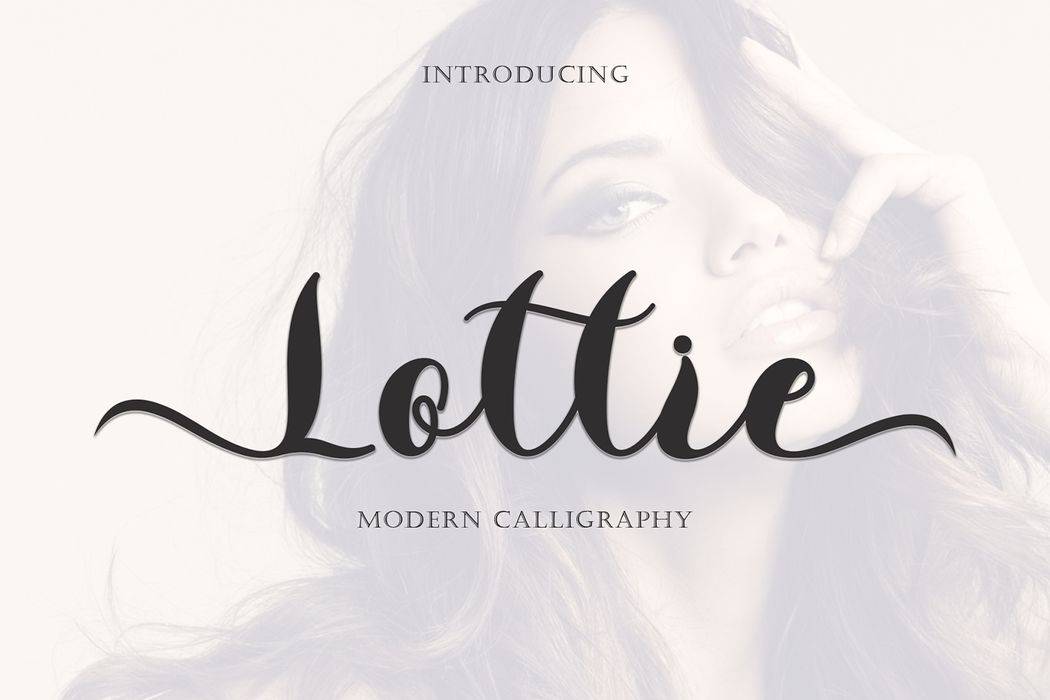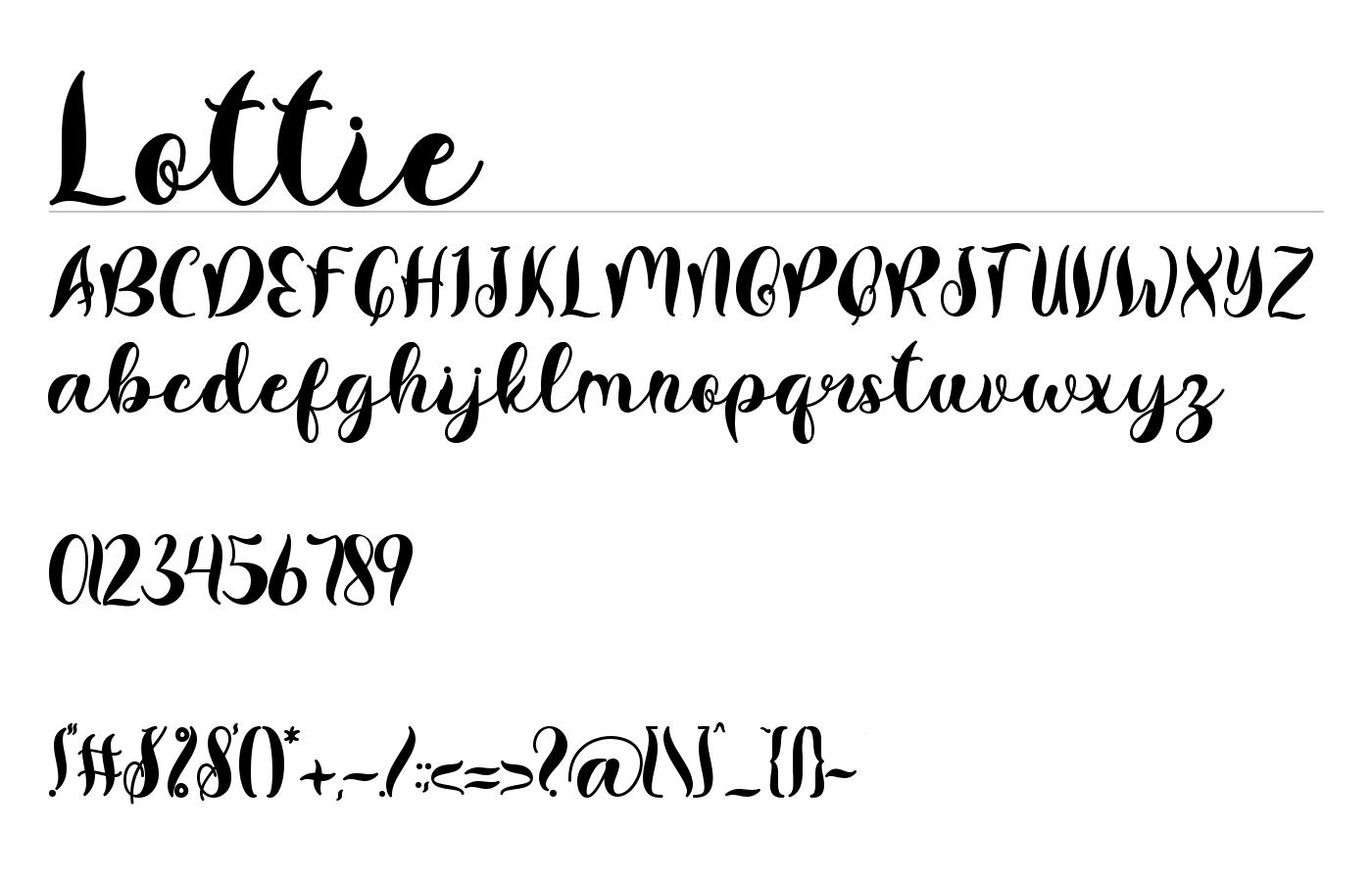
Lottie Font is a stylish, modern script typeface characterized by its elegant, flowing strokes and subtle contrast that give it a handwritten yet polished feel. With its distinctive letterforms and playful swashes, it brings a lively and creative touch, making it ideal for branding, invitations, and any design seeking a friendly yet sophisticated personality. This font shines in headlines and decorative use, adding charm and warmth to fashion, beauty, and artistic projects.
Lottie Font
About Lottie Font
| Font family | Lottie Font |
| Designer | Yoga Letter 2021 (Isroni Yoga Prasetya) |